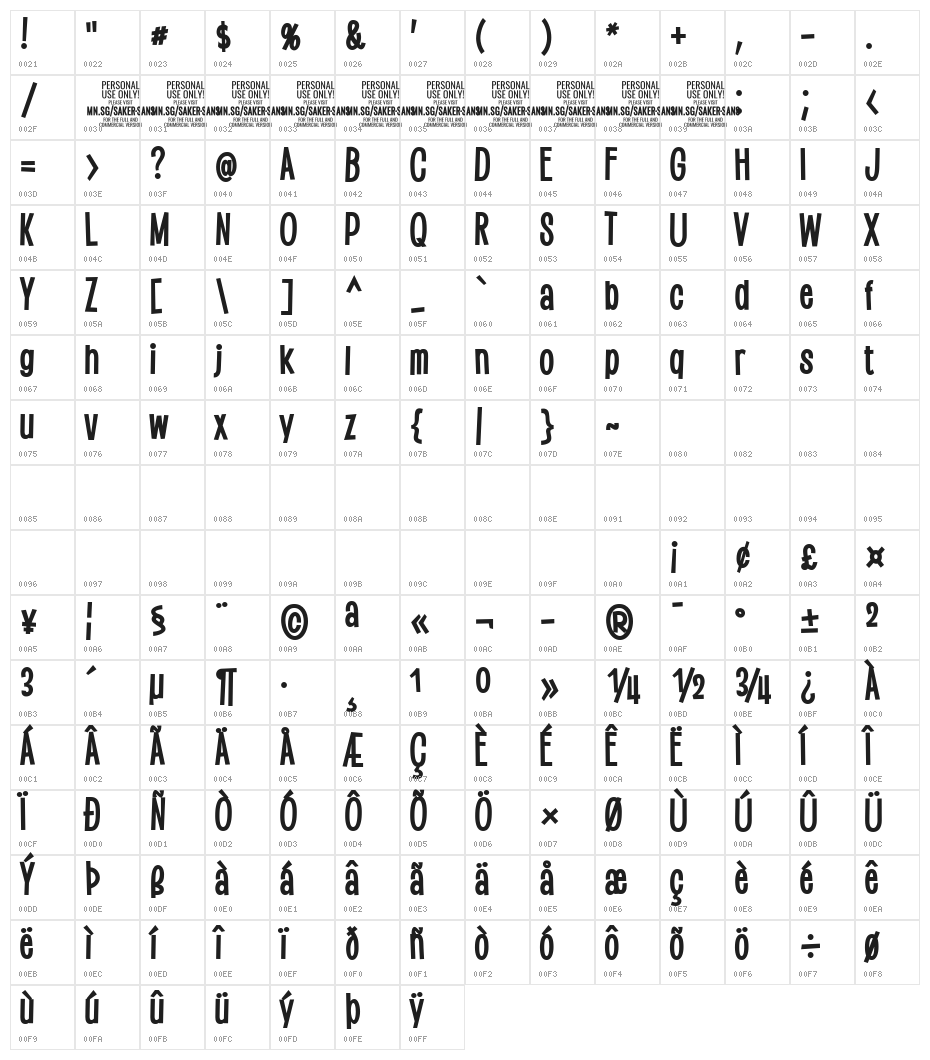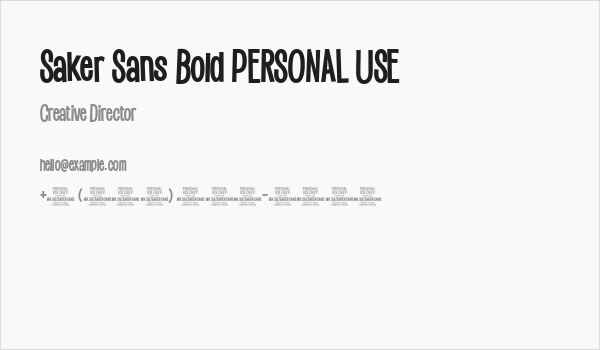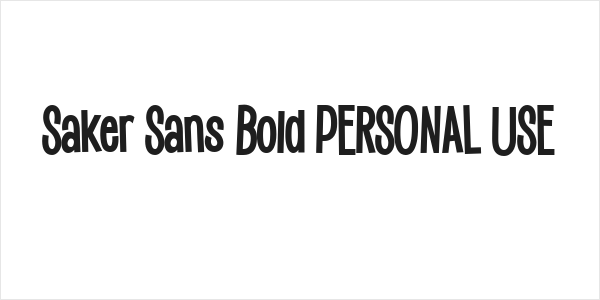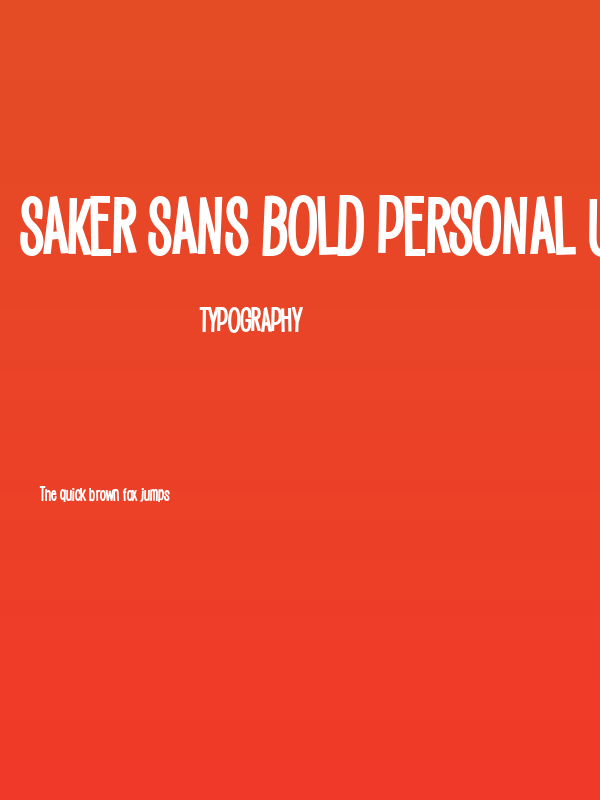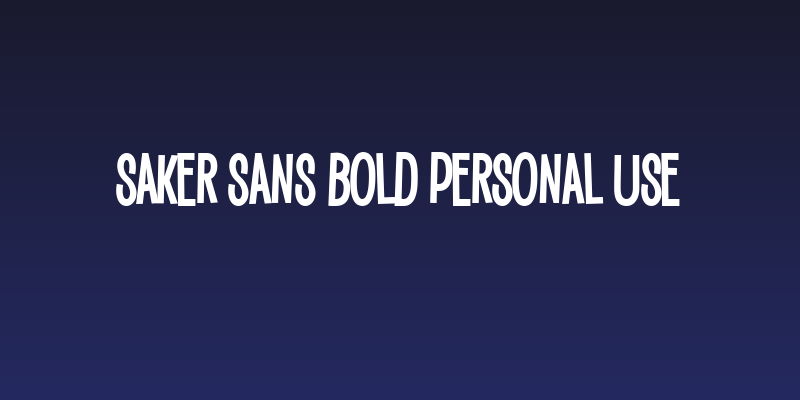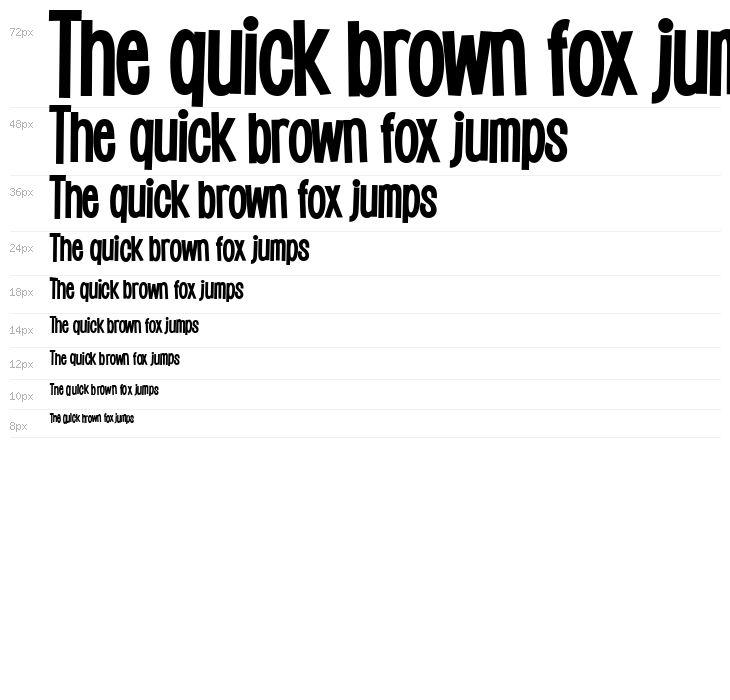
Saker Sans Bold PERSONAL USE Font
Saker Sans Bold PERSONAL USE Description
This font exhibits a bold and impactful sans-serif style, characterized by its thick, uniform strokes and clean lines. The uppercase and lowercase letters maintain a consistent width, providing a strong visual presence. The font's design is straightforward, with minimal embellishments, making it highly legible and suitable for various applications. The characters are tightly spaced, enhancing its bold appearance. The numerals and special characters align seamlessly with the overall design, ensuring a cohesive look across all text elements.
| Proposed Projects | Ideal for headlines, posters, branding materials, and any project requiring a strong visual impact. |